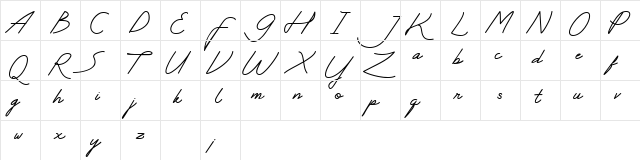
My Ugly Handwritting Demo Versi Regular Font Preview
My Ugly Handwritting Demo Versi Regular
My Ugly Handwritting Demo Versi Regular Font Details
| Designer | Susilo Hidayat |
Design Context for My Ugly Handwritting Demo Versi Typeface
My Ugly Handwritting Demo Versi flows with the natural rhythm of handwritten lettering, making it ideal for designs that call for warmth and personal expression.
Font Pairing: Combine My Ugly Handwritting Demo Versi with a simple geometric sans for maximum contrast — the tension between flowing curves and clean structure is a classic typographic pairing.
Pro Tip: Pair My Ugly Handwritting Demo Versi with a clean sans-serif for supporting text. The contrast between fluid script and geometric structure creates an elegant typographic hierarchy.